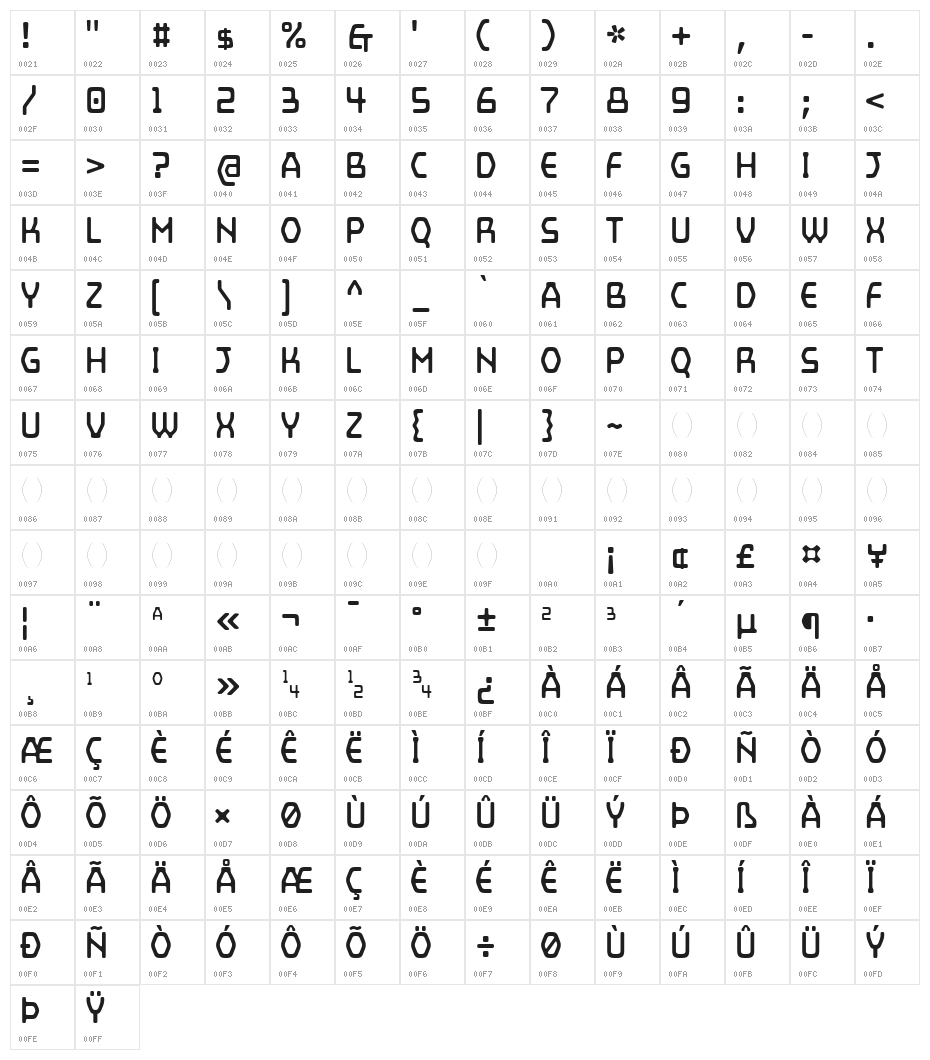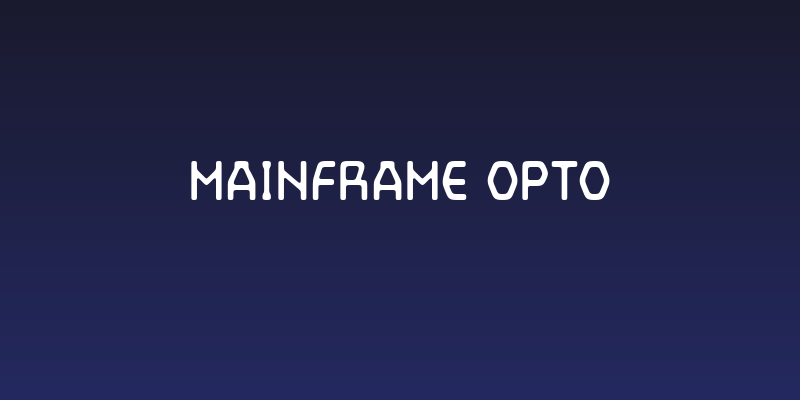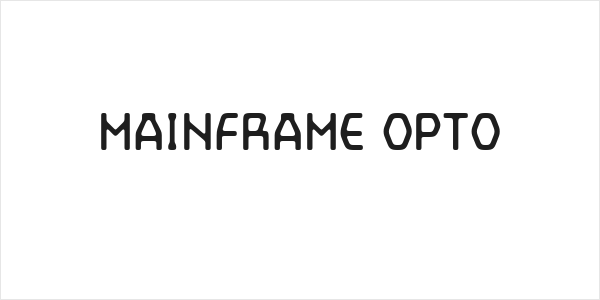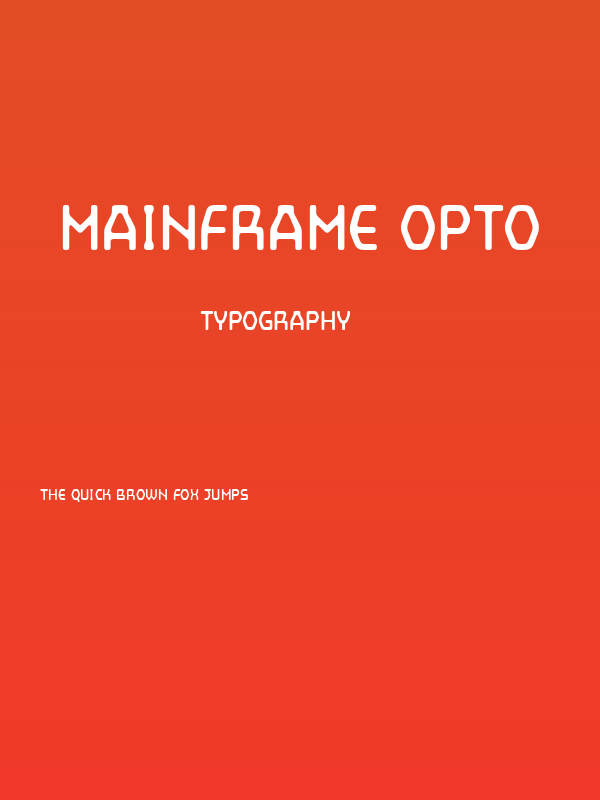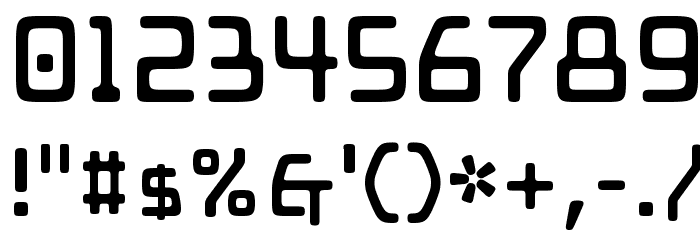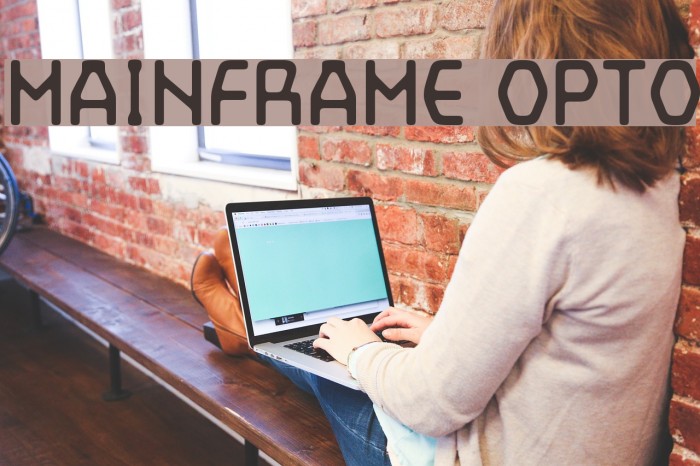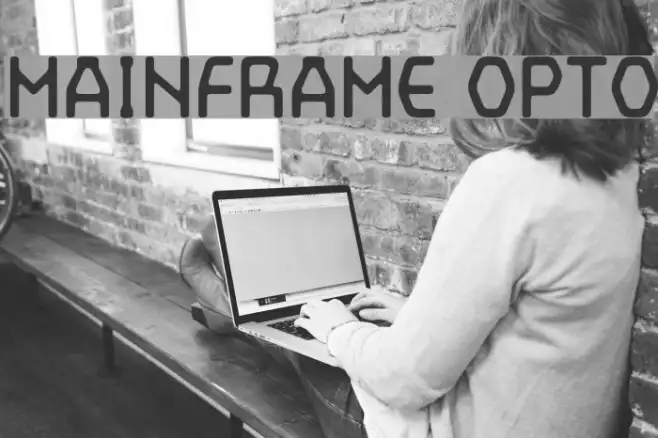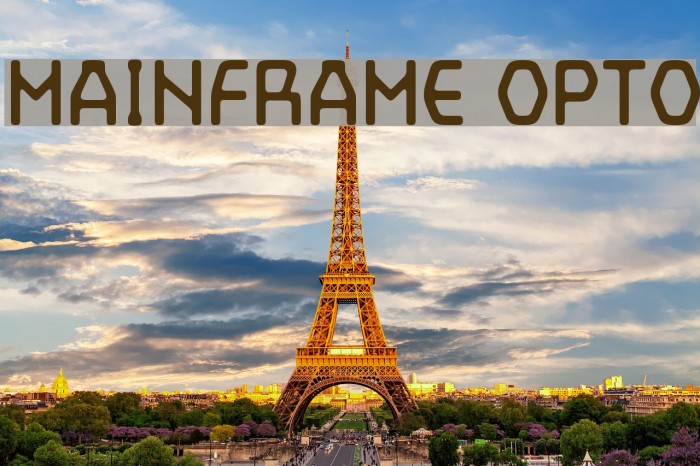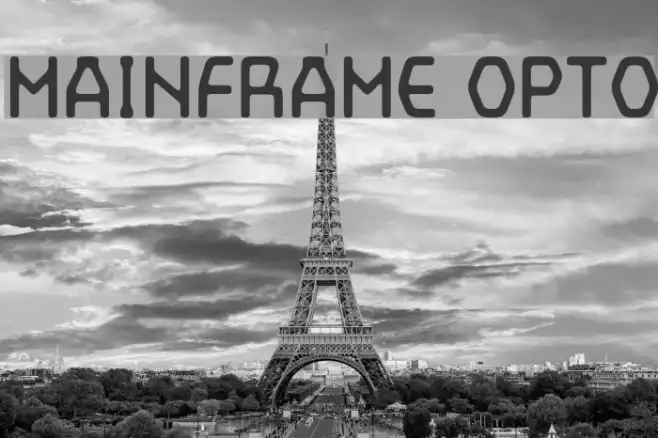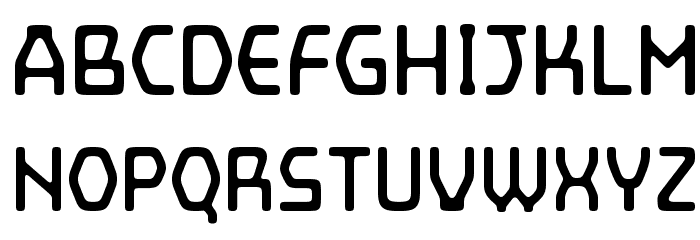
Mainframe Opto Font
Mainframe Opto Description
This font features a futuristic and geometric design, characterized by rounded edges and a uniform stroke width. The letters are bold and have a distinct, modern appearance with a slightly condensed form. The numerals and special characters maintain the same stylistic approach, ensuring consistency across all glyphs. The overall look is clean and minimalistic, making it suitable for digital interfaces and technology-themed projects. Its unique style is both eye-catching and functional, providing clarity and readability.
| Use Case | Headlines, Logos, Digital Interfaces |
| Proposed Projects | Ideal for technology branding, digital interfaces, video game design, and sci-fi themed posters. |